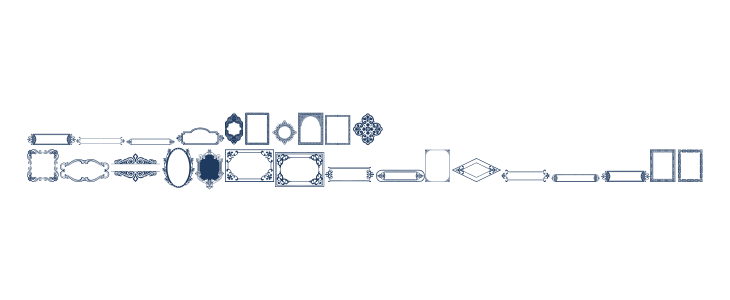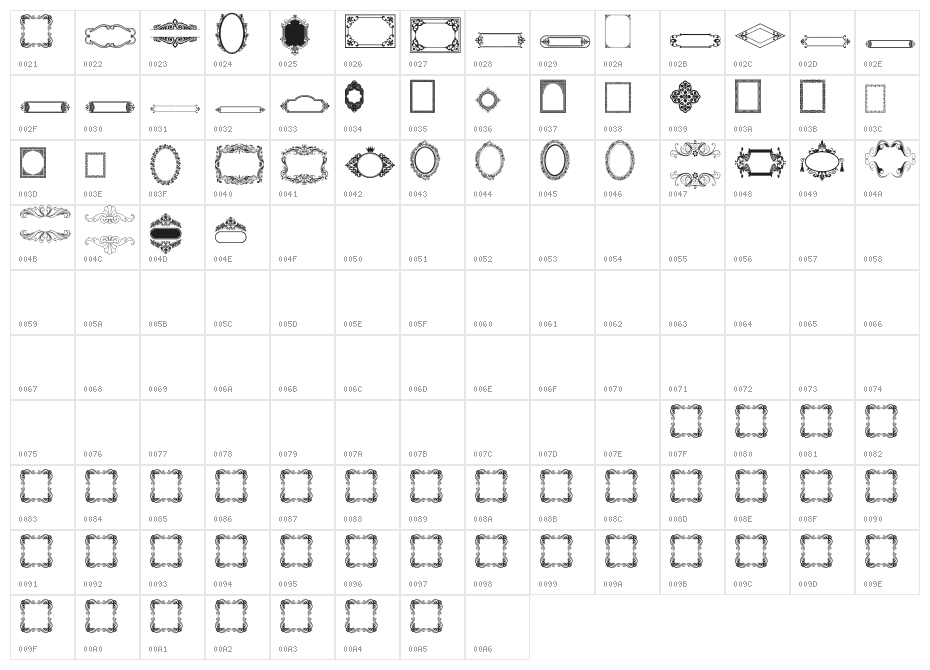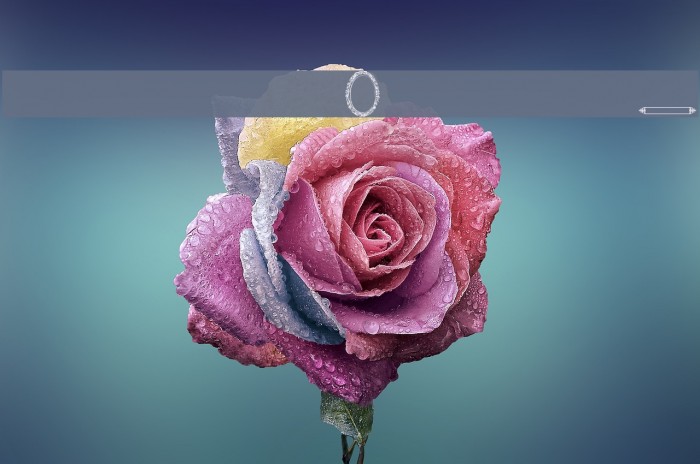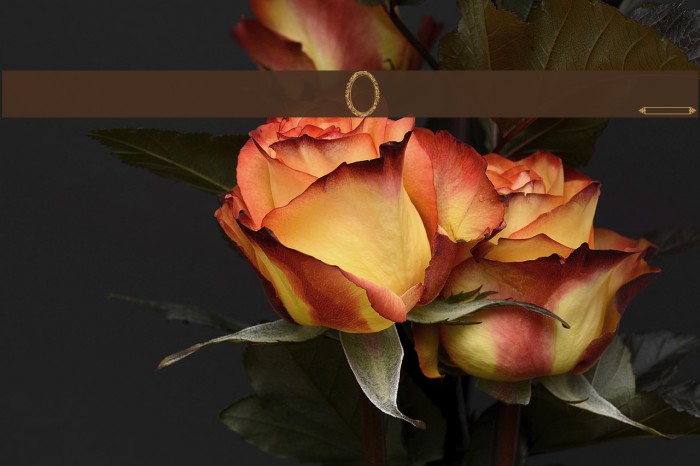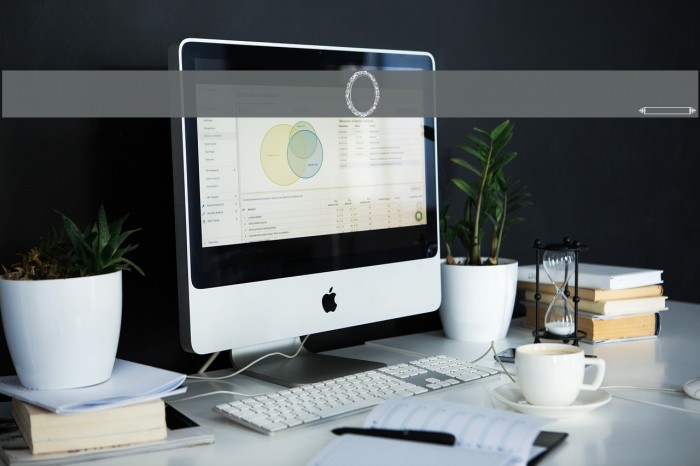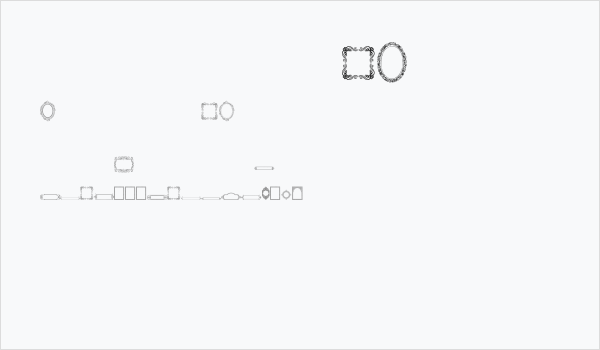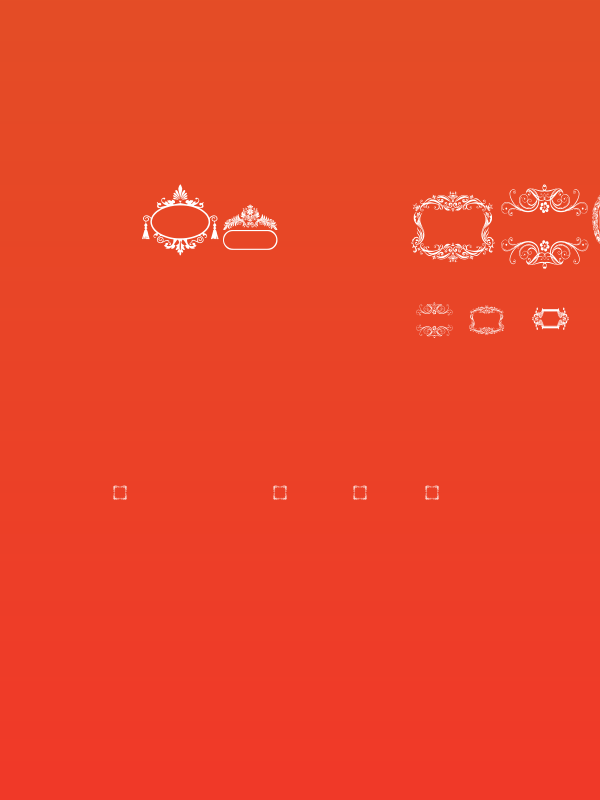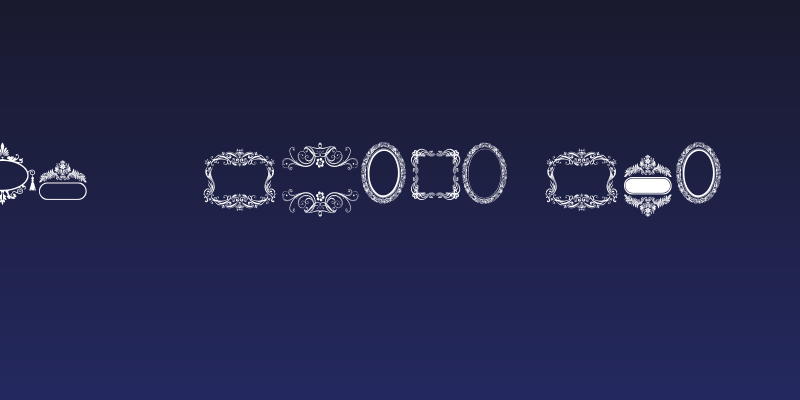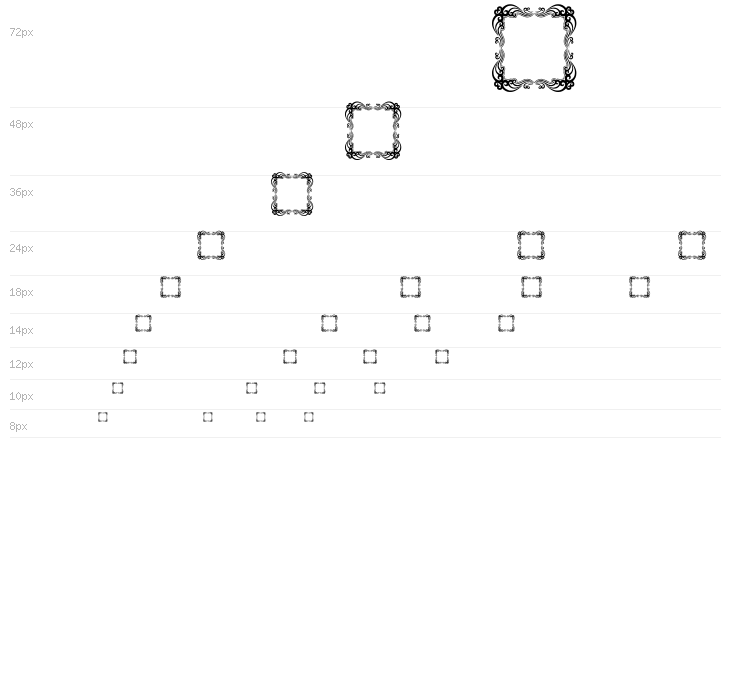
Vintage Frames 2 Font
Vintage Frames 2 Description
A decorative dingbat set featuring intricate vintage-style frames and ornate borders, each glyph representing a unique ornamental frame design with flourishes and embellishments reminiscent of antique picture frames.
| Overall Style | Vintage, Decorative |
| Use Case | Decorative elements, Borders, Frames, Invitations |
| Proposed Projects | Wedding invitations, certificates, vintage-themed posters, scrapbooking, decorative labels, branding for luxury or antique shops. |